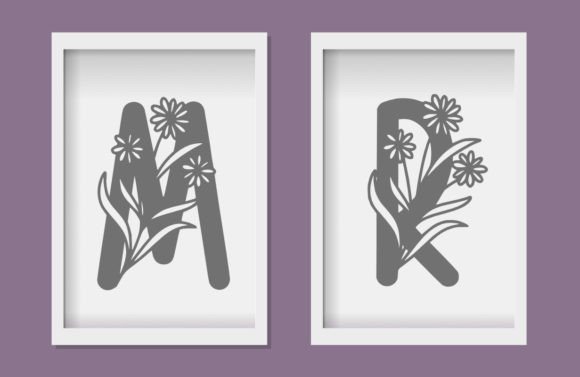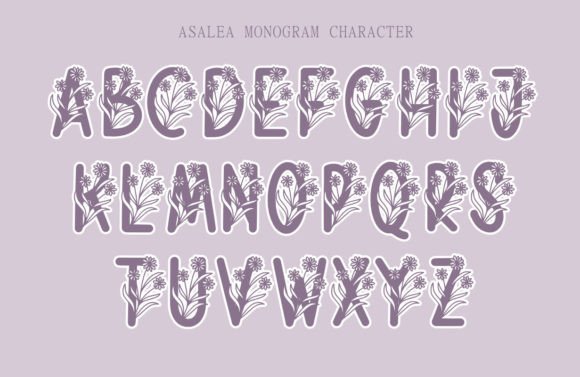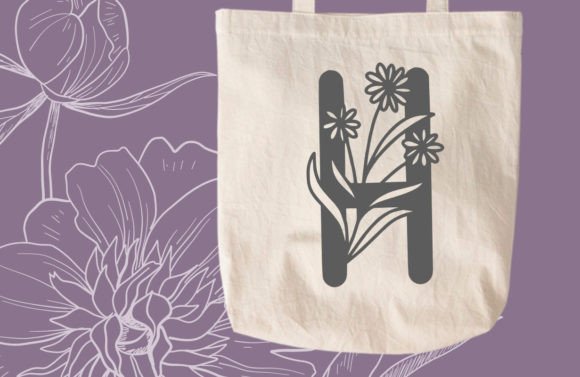
Introducing Asalea Monogram Font: Elevate Your Designs with Delicate Elegance
In the world of design, fonts play a crucial role in conveying the tone and aesthetic of a project. For crafters, digital designers, and anyone looking to add a personal touch to their creations, the right font can make all the difference. This is where the Asalea Monogram Font comes into play—a delicate and genuine decorative font that is set to revolutionize the way you approach your designs.
The Charm of Asalea Monogram Font
Asalea Monogram is not just another font; it’s an experience. Imagine a font that combines the elegance of monograms with the beauty of flowers, creating a unique and sophisticated look that’s perfect for a variety of projects. Whether you’re crafting personalized gifts, designing digital content, creating presentations, or making greeting cards, Asalea Monogram Font brings a touch of elegance and charm that sets your work apart.
Elegant Flowers as Ornaments
What makes Asalea Monogram stand out is its use of elegant flowers as ornaments. These floral elements are intricately designed to add a delicate and genuine feel to your texts and monograms. The font’s design is inspired by the beauty of nature, bringing a fresh and vibrant look to your designs. The flowers are used as decorative pieces that can be seamlessly integrated into your text, making your designs more visually appealing and engaging.
One of the key benefits of the Asalea Monogram Font is its versatility. This font is not limited to a specific type of project; it’s incredibly versatile and can be used across various platforms and design projects. Here are a few ways you can use Asalea Monogram Font:
• Crafting: Add a personal touch to your DIY projects, such as handmade cards, scrapbooking, and other paper crafts.
• Digital Designing: Use it for creating stunning social media graphics, blog headers, and website elements.
• Presentations: Elevate your presentation designs with elegant monograms and floral accents.
• Greeting Cards Making: Create beautiful and personalized greeting cards for any occasion.
Why Choose Asalea Monogram Font?
Choosing the right font for your project can be overwhelming, but here are a few reasons why Asalea Monogram Font should be at the top of your list:
• Unique and Eye-Catching: The combination of monograms and floral elements makes your designs stand out.
• Elegant and Sophisticated: Adds a touch of elegance and sophistication to your projects.
• Easy to Use: Designed to be user-friendly, making it easy to integrate into your designs.
• Highly Versatile: Suitable for a wide range of projects, from digital designs to crafting.
How to Make the Most of Asalea Monogram Font
To truly make the most of Asalea Monogram Font, consider the following tips:
• Pair with Complementary Fonts: Use Asalea Monogram Font as an accent font and pair it with a simple font for your main text to create a balanced look.
• Experiment with Colors: While the font itself is the star, experimenting with different colors can enhance its beauty and adapt it to your project’s theme.
• Play with Sizes: Don’t be afraid to vary the size of the monograms and floral elements to create a more dynamic design.
Asalea Monogram Font is more than just a decorative font; it’s a tool that can transform your designs, adding a layer of elegance and charm that’s hard to achieve with standard fonts. Whether you’re a professional designer, a crafter, or someone who loves to dabble in design, Asalea Monogram Font offers endless possibilities for creativity and personalization. With its delicate flowers as ornaments and versatile application, this font is set to become a favorite in your design arsenal. So, why wait? Dive into the world of Asalea Monogram Font and let your designs bloom with elegance and sophistication.